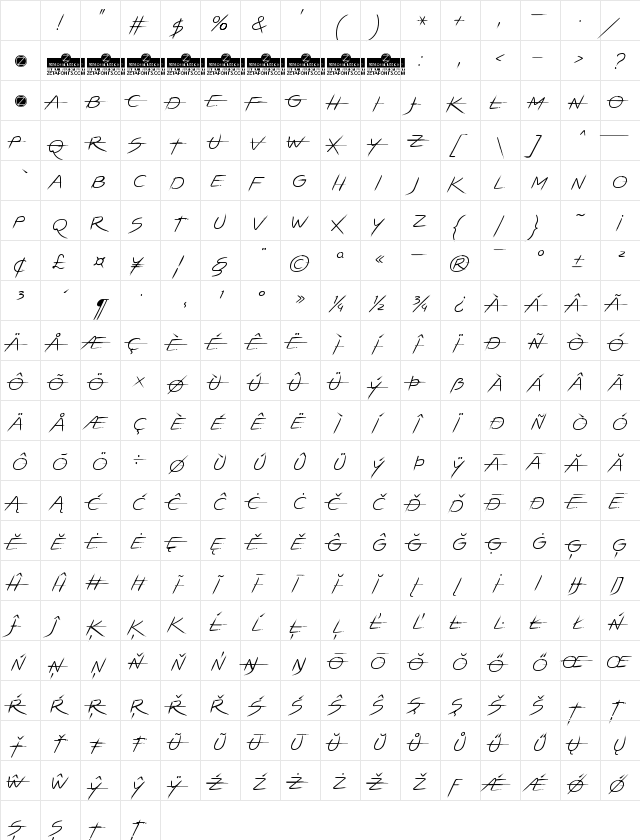
LIGHTSTRIKE is a composed and adaptable typeface that performs quietly and consistently across a wide range of design contexts. Its slender proportions lend an understated elegance to any composition.